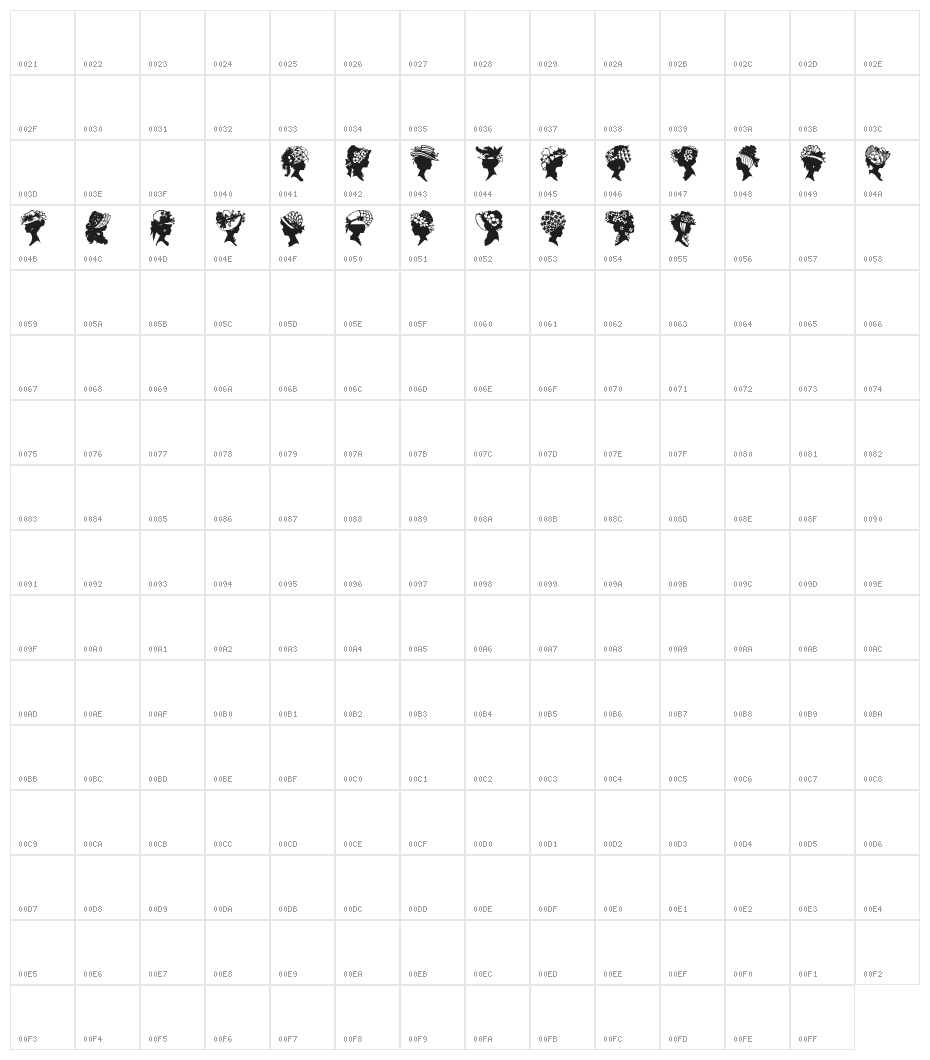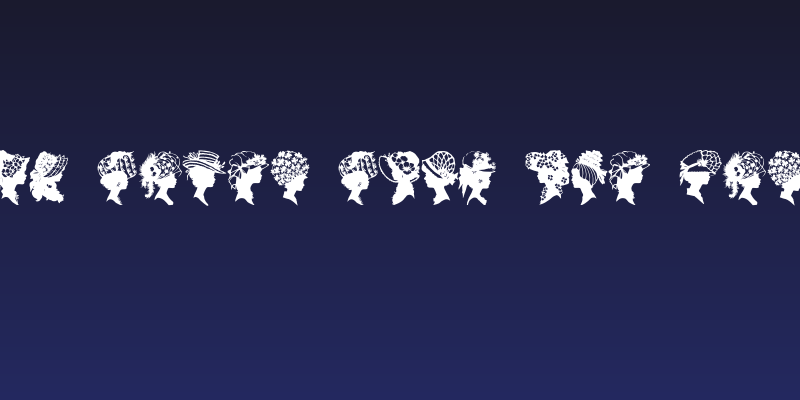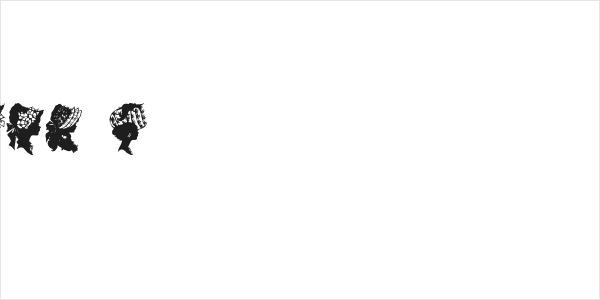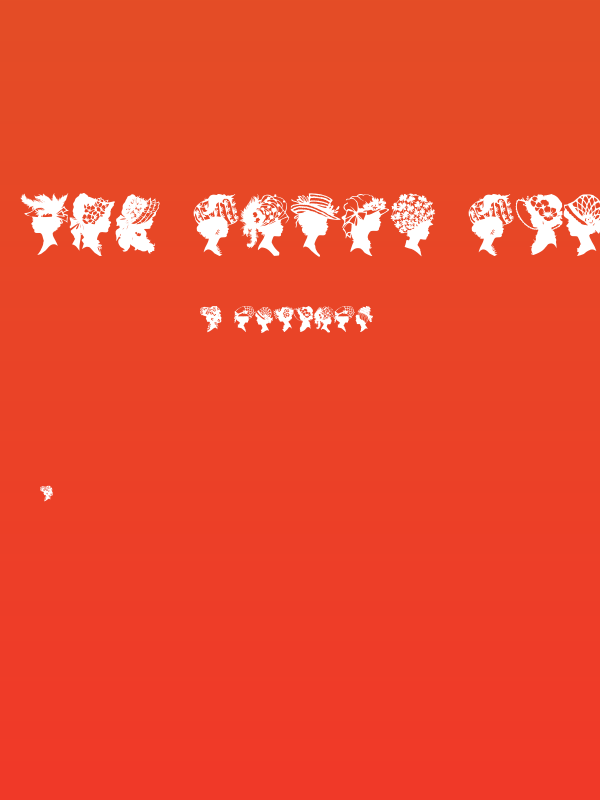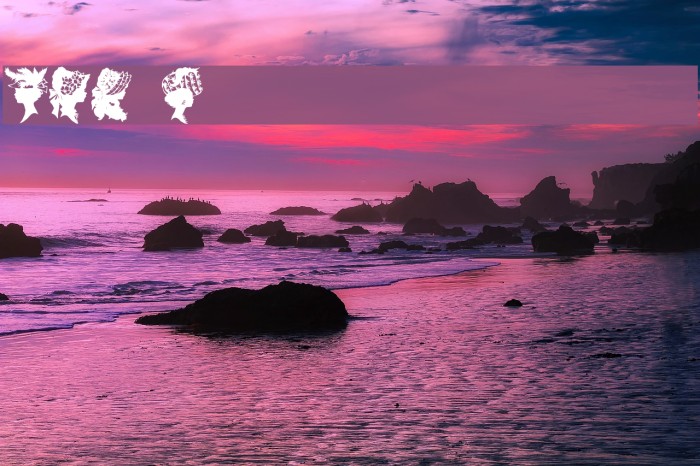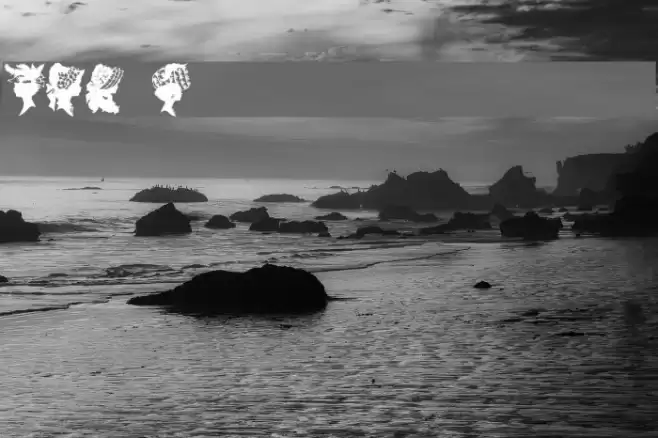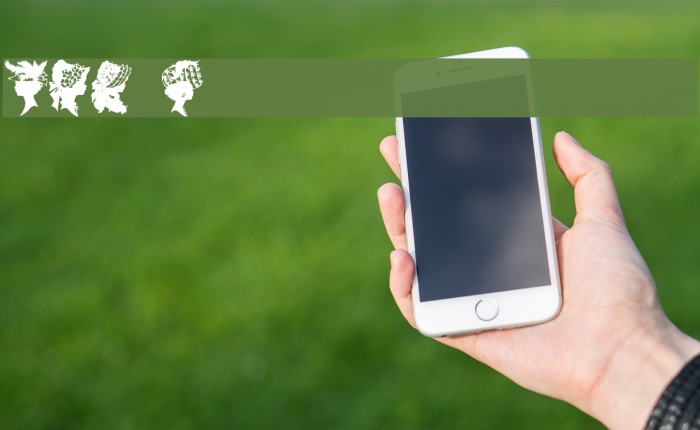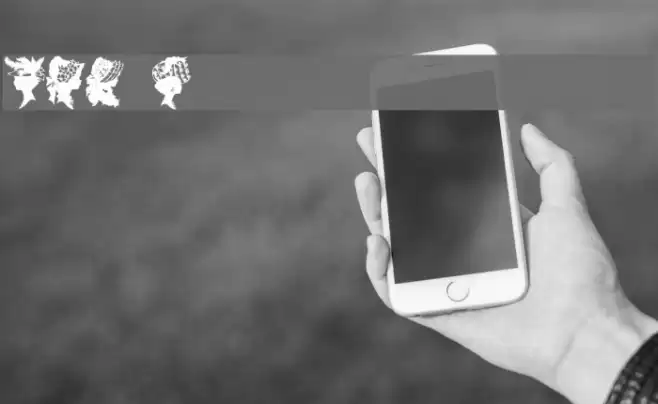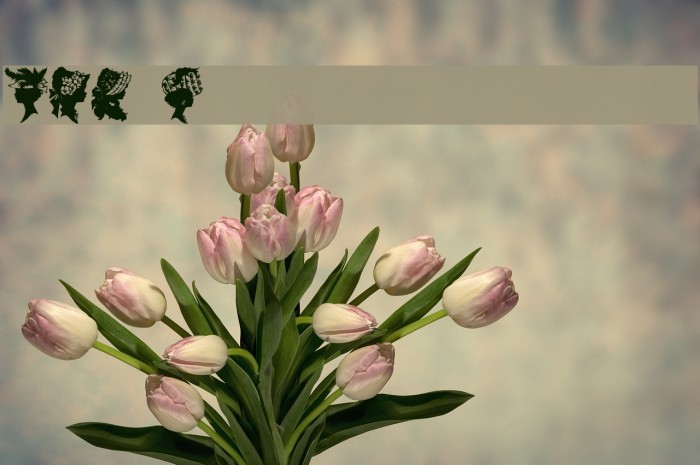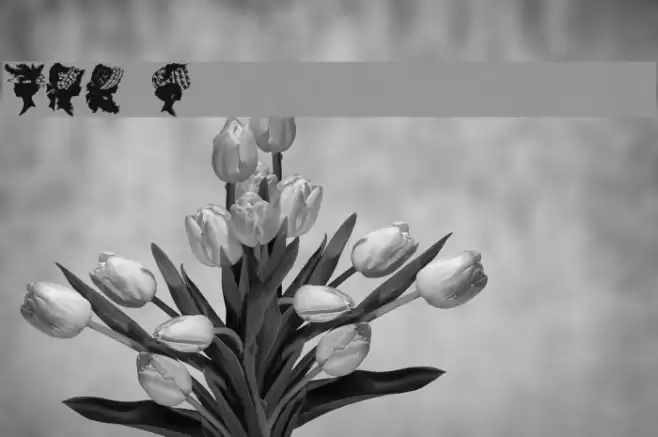
DBL Faces from the past Font
DBL Faces from the past Description
A decorative display font featuring intricate silhouette profiles of women adorned with elaborate hats and floral arrangements, each character represented by a unique vintage-inspired cameo illustration.
| Overall Style | Vintage, Decorative |
| Use Case | Logos, Headlines, Decorative elements |
| Proposed Projects | Invitations, greeting cards, event posters, vintage-themed branding, decorative initials. |